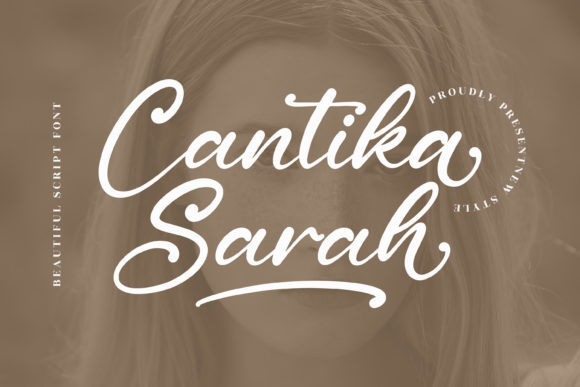
The Elusive Luxury Font: My Encounter with Cantika Sarah
I’ll never forget the struggle I faced while working on a high-end branding project for a luxury jewelry client. The brief required a font that exuded elegance, sophistication, and a touch of whimsy. I scoured the internet, tried countless fonts, but nothing seemed to fit the bill. That was until I stumbled upon Cantika Sarah, a stunning calligraphy typeface that has since become my go-to for luxury designs.
An Honest Review of Cantika Sarah
- ✨ Luxurious and delicate: Cantika Sarah’s characters dance along the baseline, adding a touch of elegance to any design project.
- ✅ PUA encoded: Easily access all the amazing glyphs and ligatures without any hassle.
- 💫 Versatile: Perfect for a wide range of design projects, from branding and packaging to wedding invitations and social media graphics.
While Cantika Sarah is an exceptional font, there are a few minor quirks to be aware of:
- ⚠️ Glyph overload: With so many glyphs and ligatures available, it can be overwhelming to navigate. Take some time to explore the font and get familiar with its features.
- 🤔 Limited use in body text: Due to its elegant, cursive nature, Cantika Sarah is best suited for headlines, titles, and short paragraphs. For longer texts, consider pairing it with a complementary font.
The Designer Inspiration Behind Cantika Sarah
Cantika Sarah’s creator drew inspiration from traditional calligraphy and elegant typography. The font’s delicate, dancing characters reflect a passion for beauty and luxury. Whether you’re a designer, crafter, or creative hobbyist, Cantika Sarah is sure to add a touch of sophistication to your projects.
Q: What is PUA encoding, and how does it benefit Cantika Sarah users?
A: PUA (Private Use Area) encoding allows users to access a font’s glyphs and ligatures easily. In Cantika Sarah’s case, this means you can effortlessly navigate and use its extensive character set.
Q: How do I pair Cantika Sarah with other fonts?
A: Cantika Sarah pairs well with clean sans-serifs, such as Maison Neue or Montserrat. Experiment with different font combinations to find the perfect match for your design.